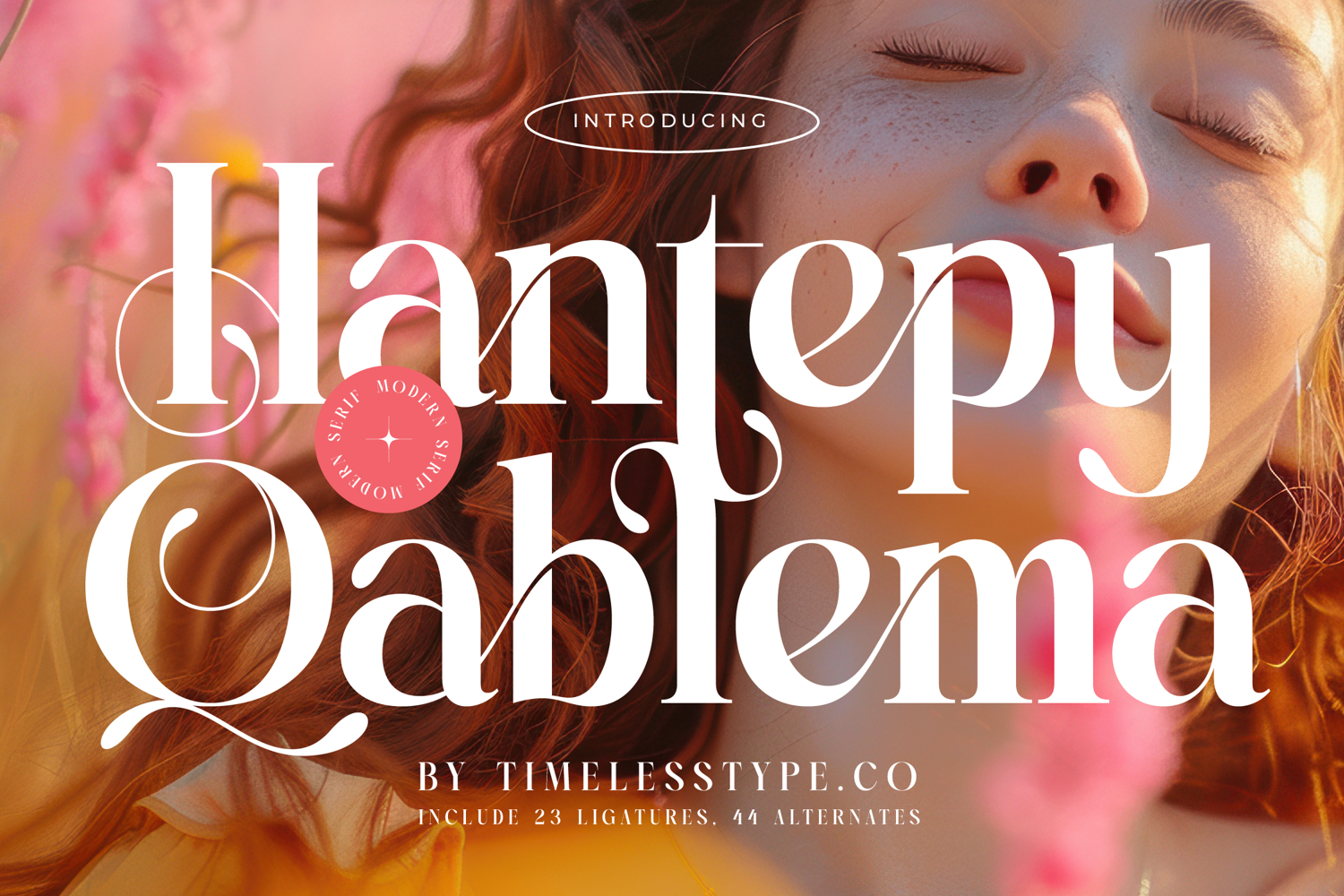
Hantepy Qablema - Modern Serif Font
Hantepy Qablema is a modern serif display font that radiates sophistication, beauty, and timeless elegance. With its refined strokes, high-contrast serifs, and graceful curves, this typeface creates a perfect balance between classic charm and contemporary design. Designed with 23 ligatures and 44 alternates, Hantepy Qablema offers flexibility and variety, allowing designers to craft expressive and unique compositions for every project. Its flowing alternates and stylish ligatures transform typography into an artistic element that enhances any layout.